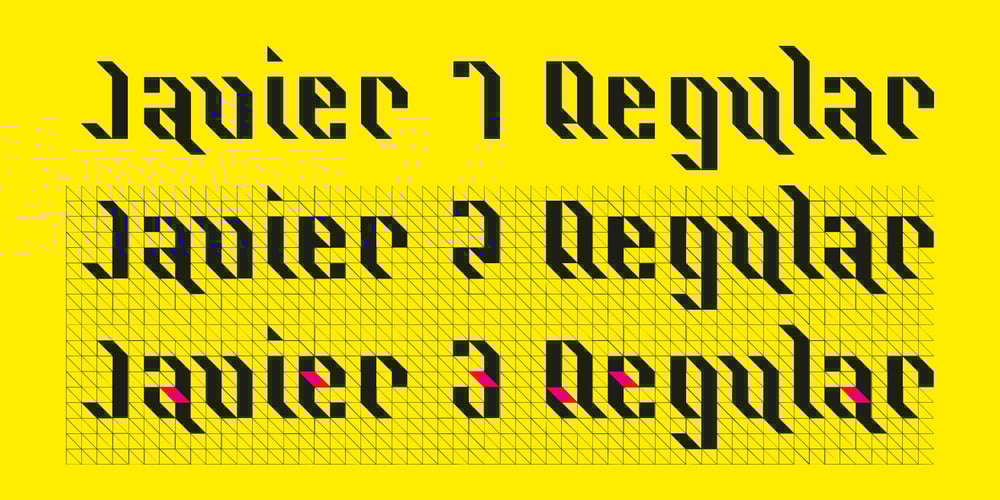
Ps Javier
Ps Javier font
Ps Javier Font Family was designed by Peter Slager and published by Fontopia. Ps Javier contains 3 styles and family package options. The font is named after my son Javier. He studies architecture. Font Javier follows architectural principles. Javier 1, Javier 2 and Javier 3 can be combined with each other.